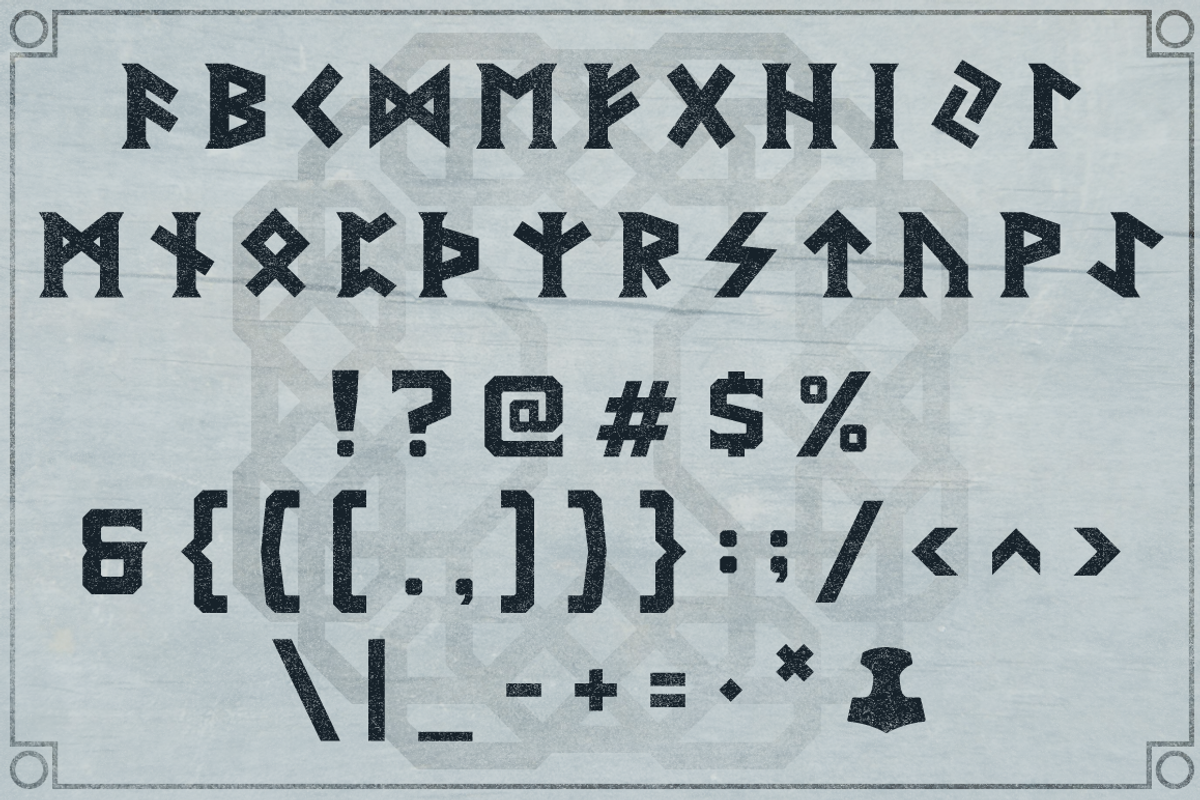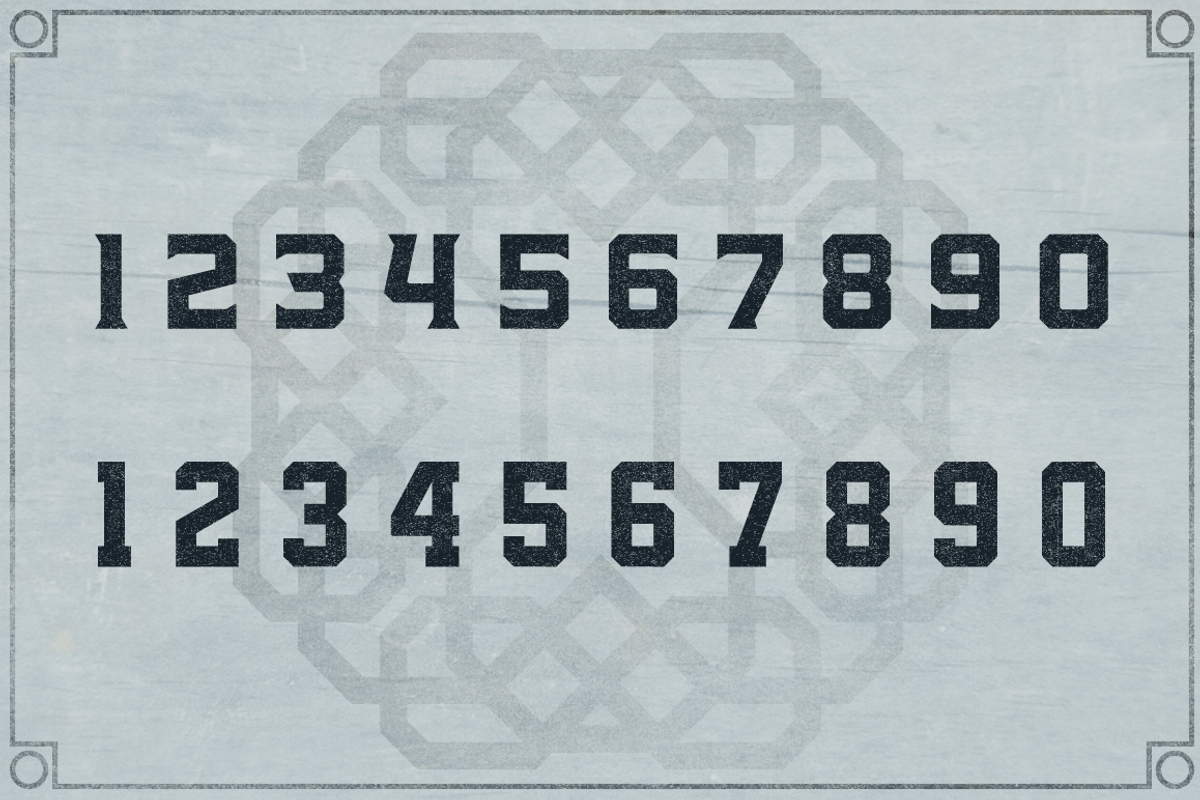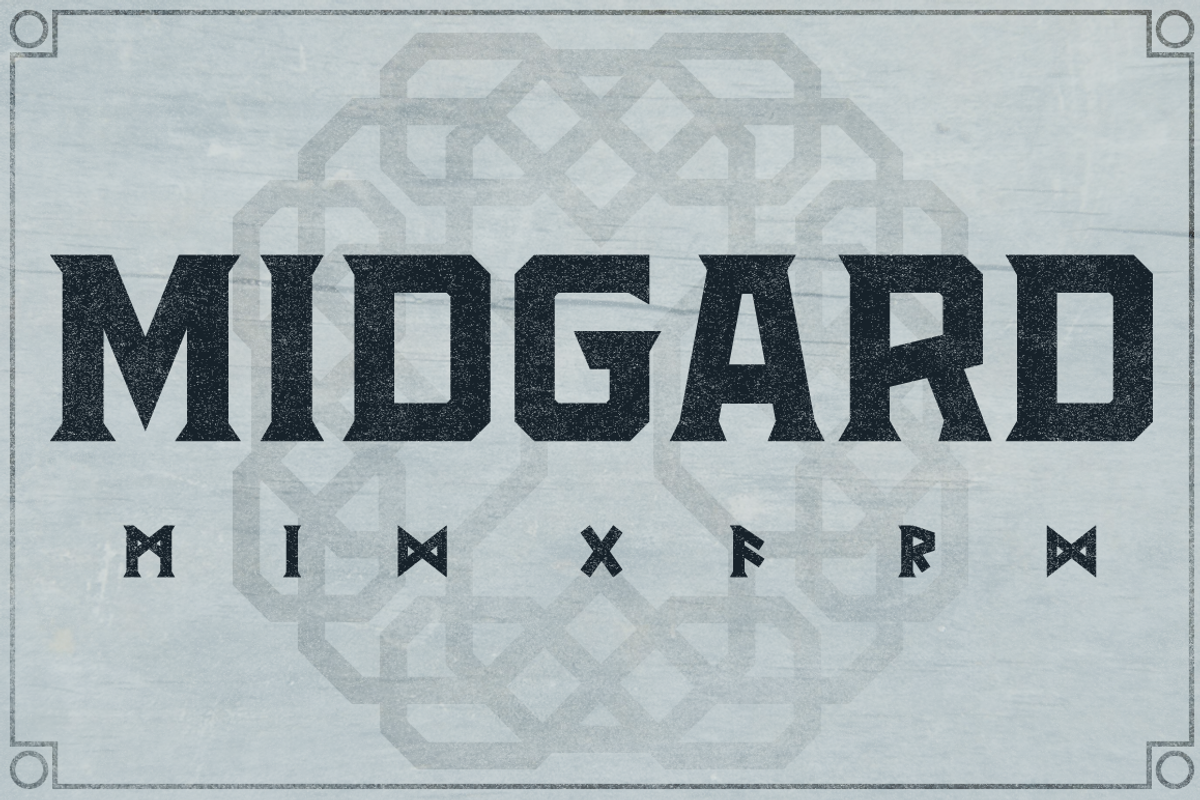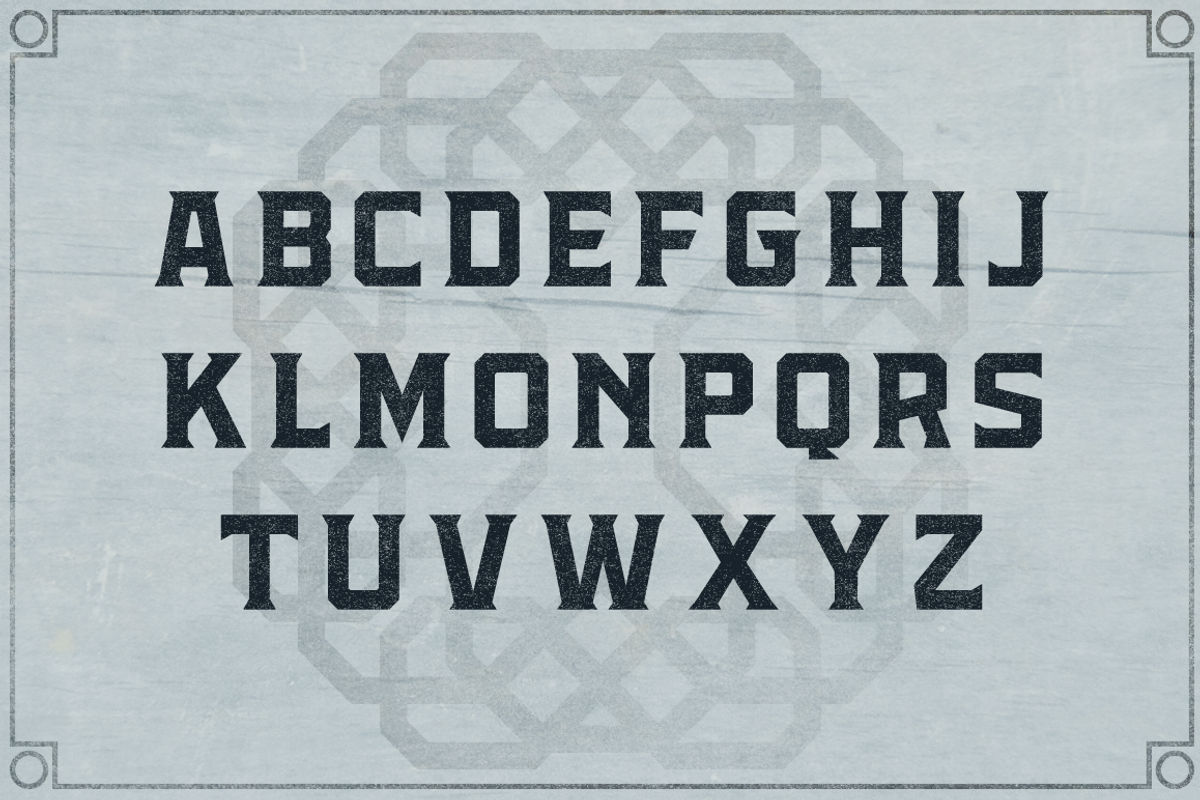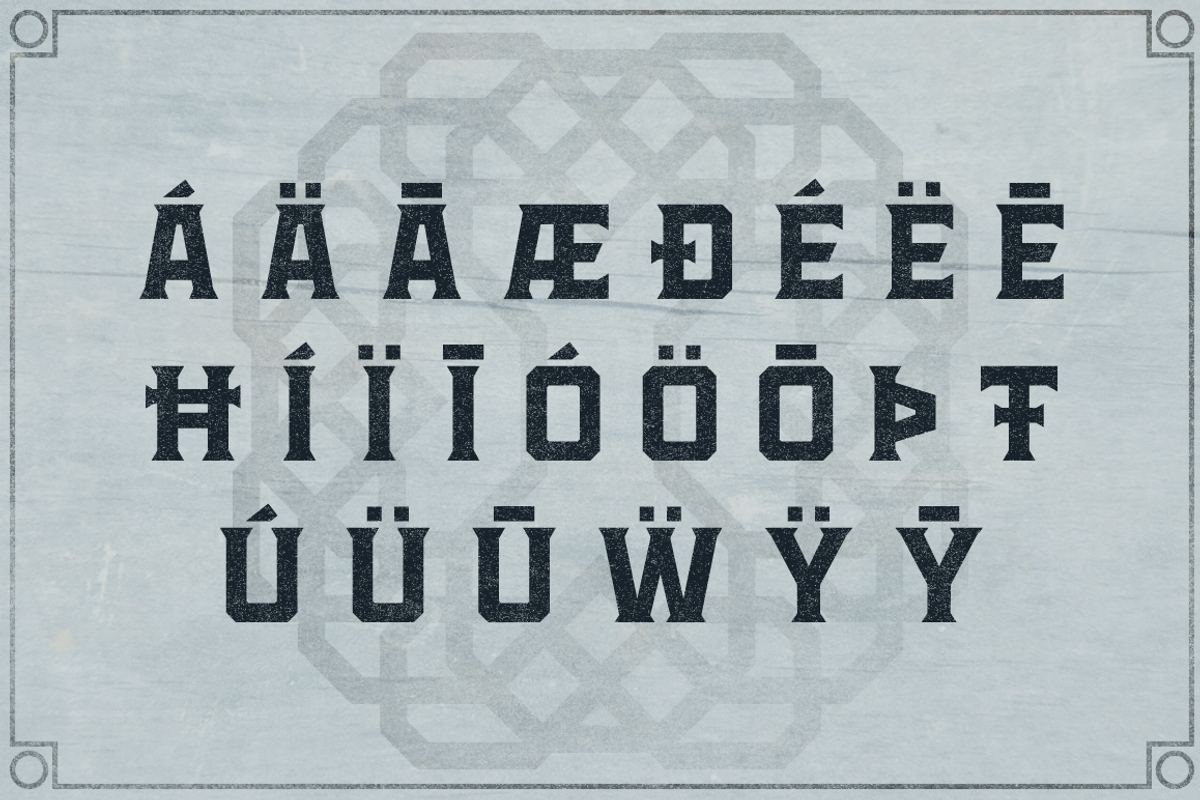
Midgard
Striking and bold, Midgard is a sharply angled display font that is ready for battle! A solid addition to our family of fonts, Midgard is great for posters, logos, book covers, and fits seamlessly into graphics for the fantasy, gaming, print, sports and apparel industries that want something more impactful and less cliche. Named after the Old Norse cosmology term for Earth and its place on Yggdrasil - the World's Tree. The font's depth really comes into play with its support of other languages, functioning set of Futhark runes and Germanic iconography, expanded symbols set, along with an additional narrow block number set made specifically for sports uniforms. We hope you enjoy! please note the texture effect is not part of the font